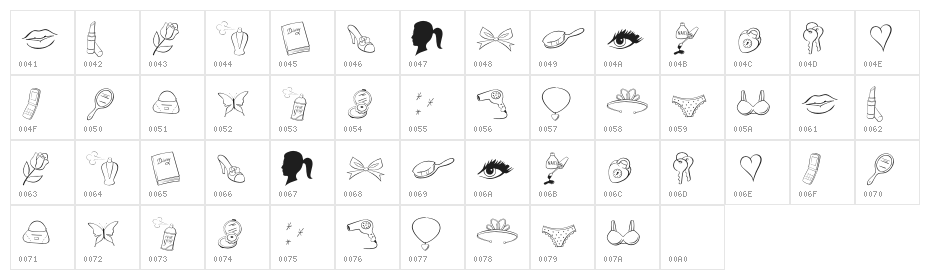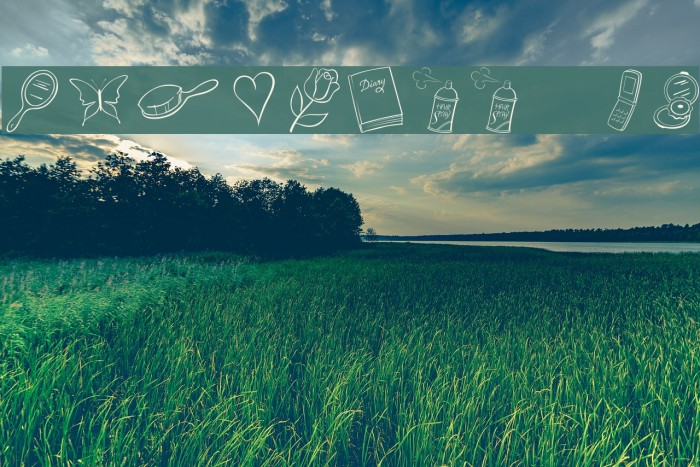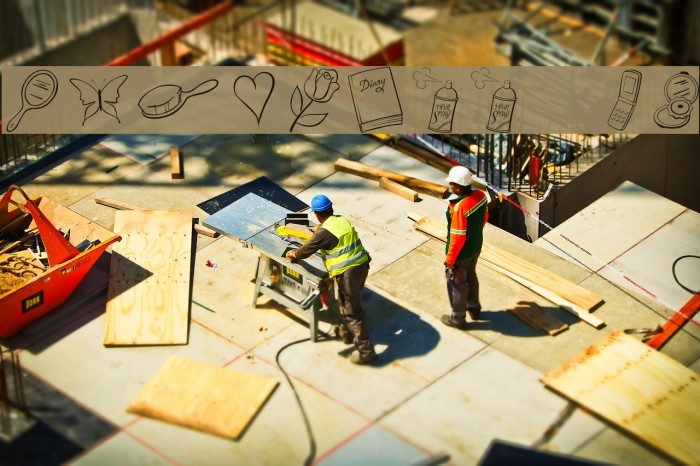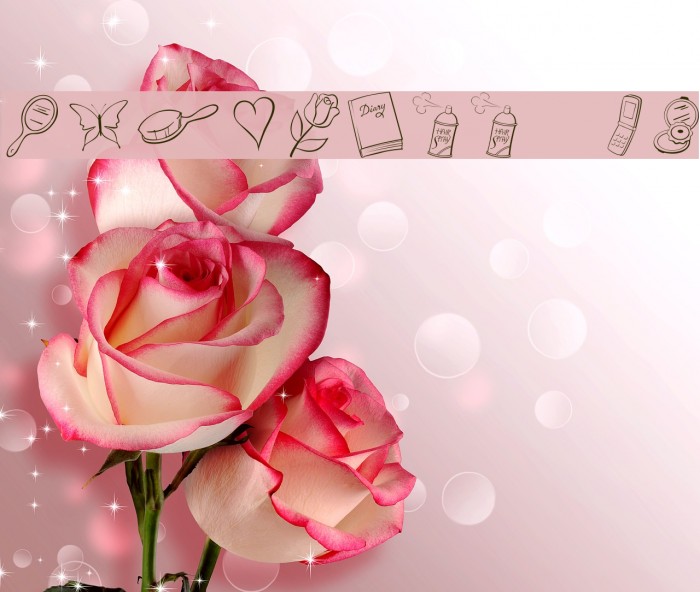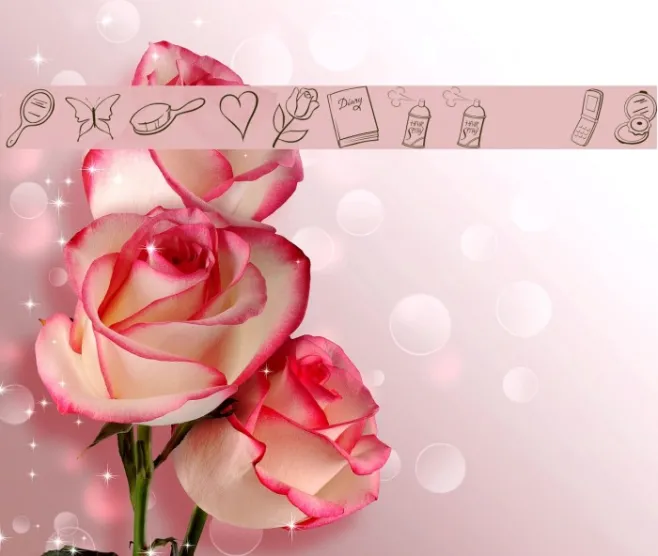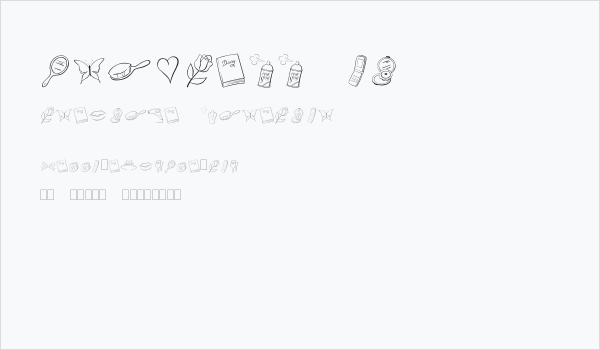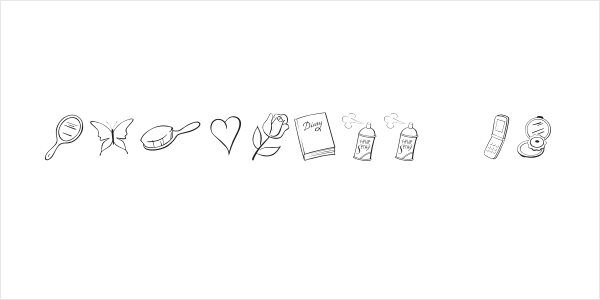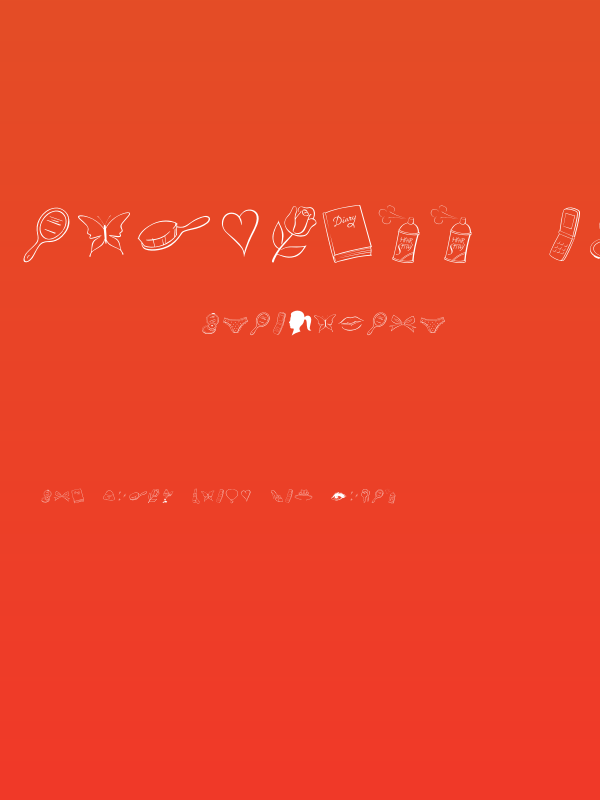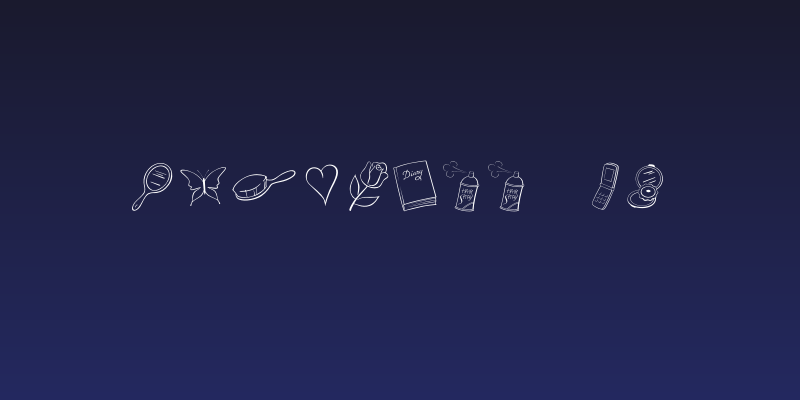
Princess OT Font
Princess OT Description
This is a decorative font featuring a collection of playful and feminine icons. The design includes elements such as lipstick, perfume, diary, silhouette of a woman's head, bows, makeup items, eyes, and various fashion accessories. Each character is represented by a unique, detailed illustration, making it ideal for creative and themed projects. The icons are outlined with clean lines, providing a clear and stylish appearance. This font is perfect for projects that require a touch of elegance and whimsy, such as invitations, fashion blogs, or beauty product branding.
| Proposed Projects | Ideal for fashion blogs, beauty product branding, themed invitations, and creative design projects. |